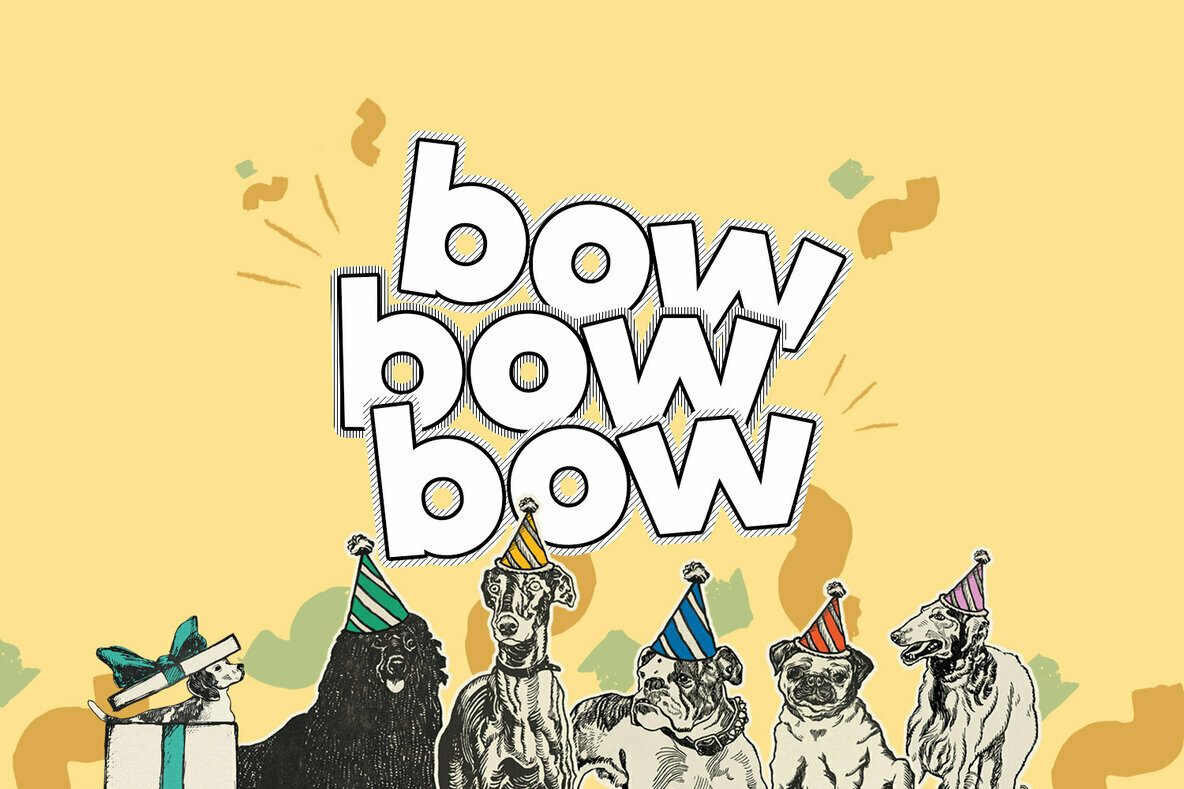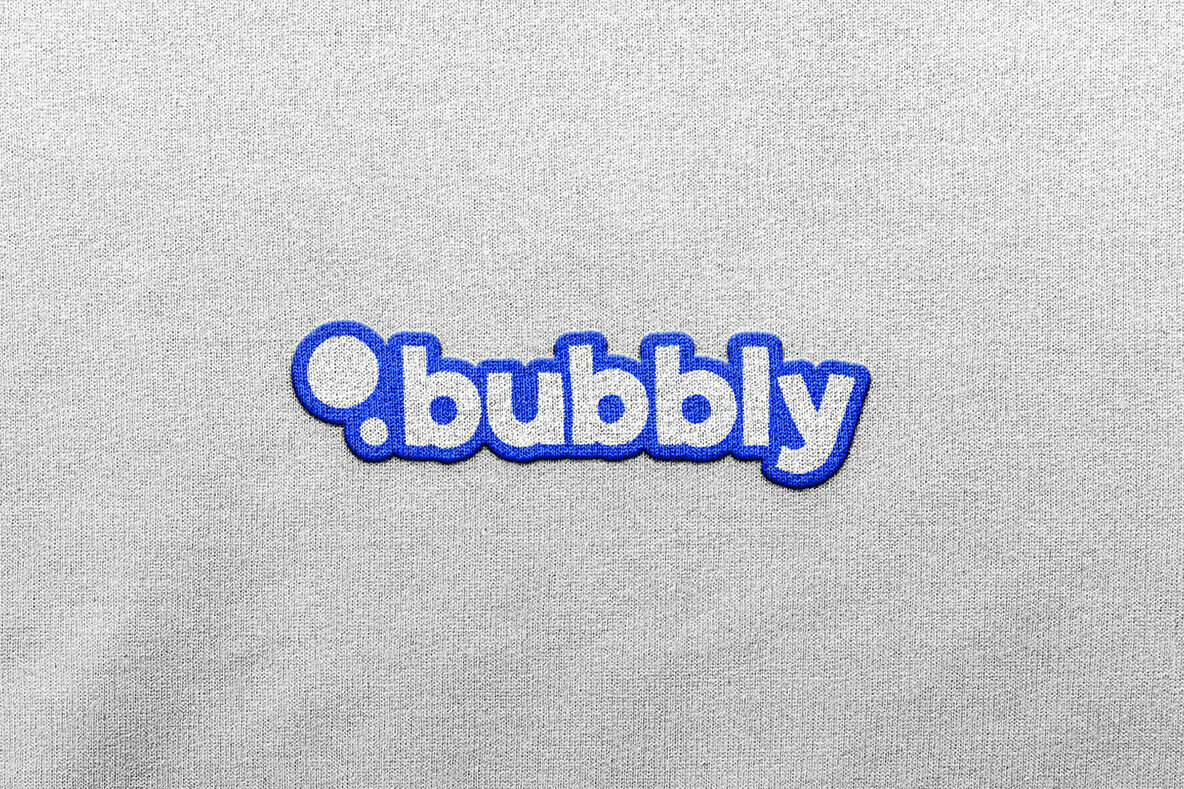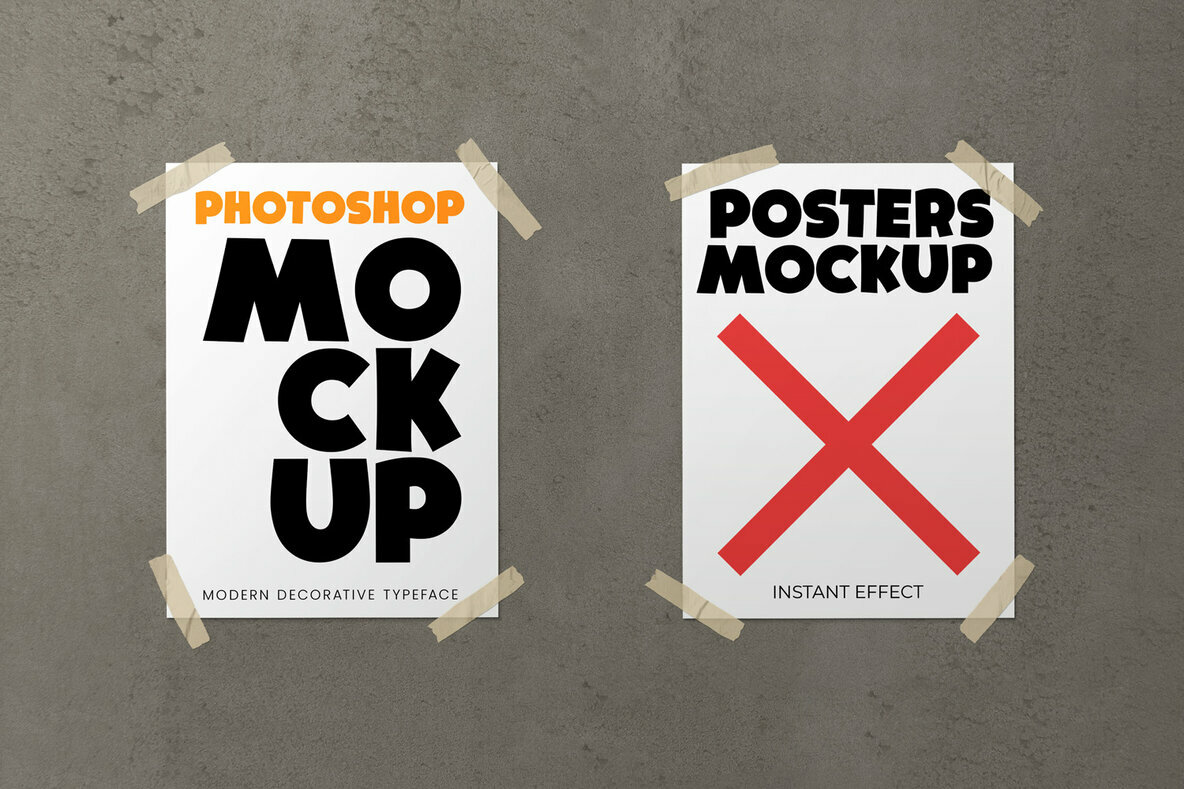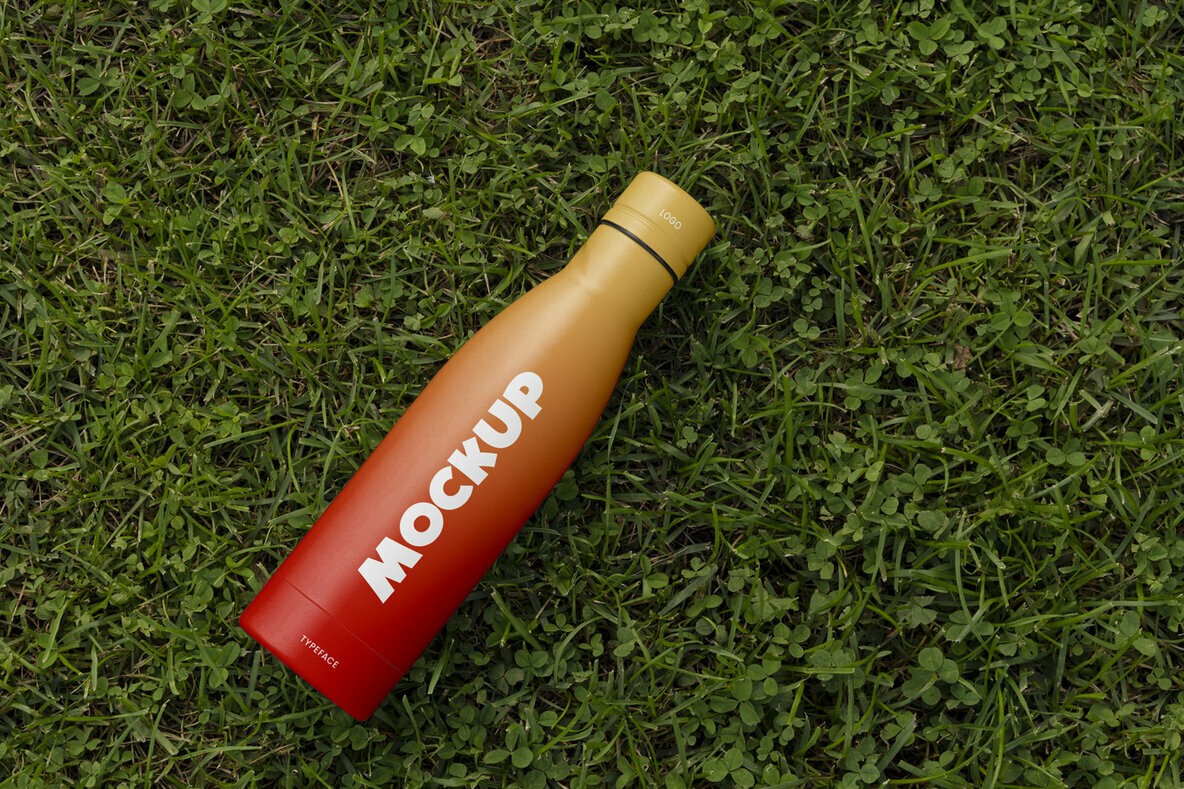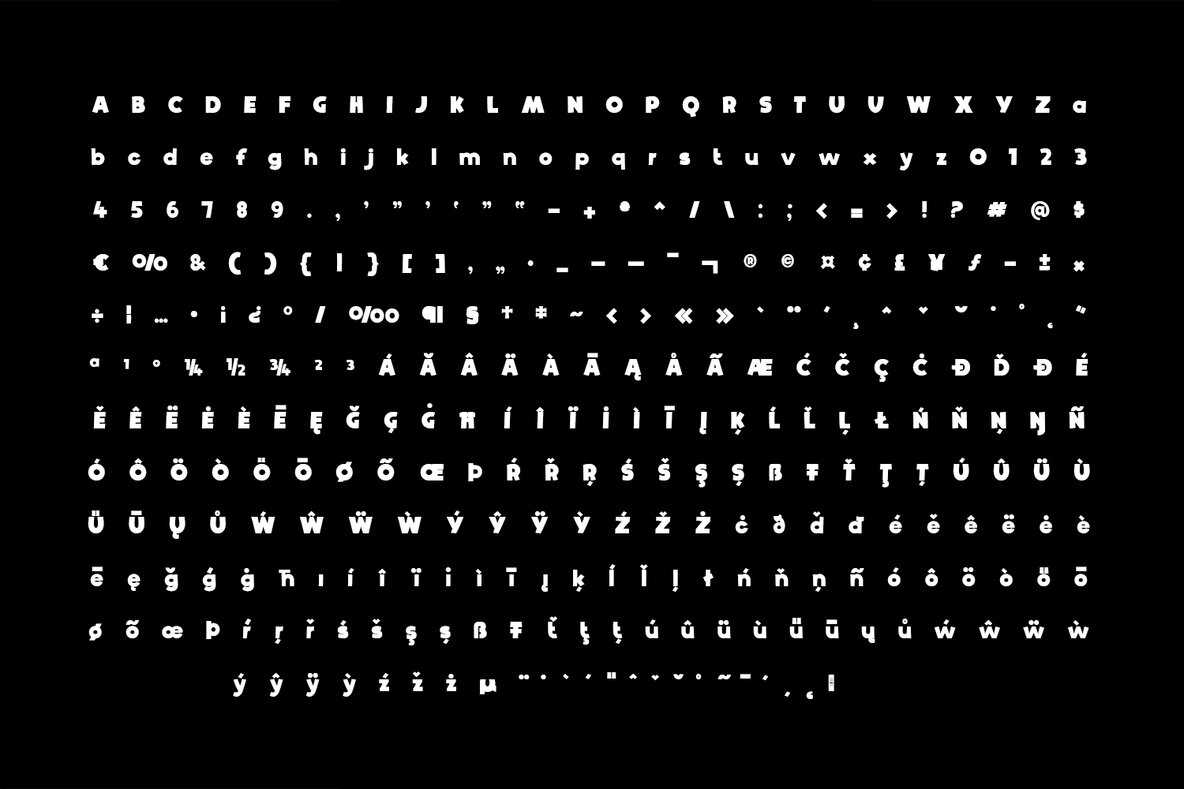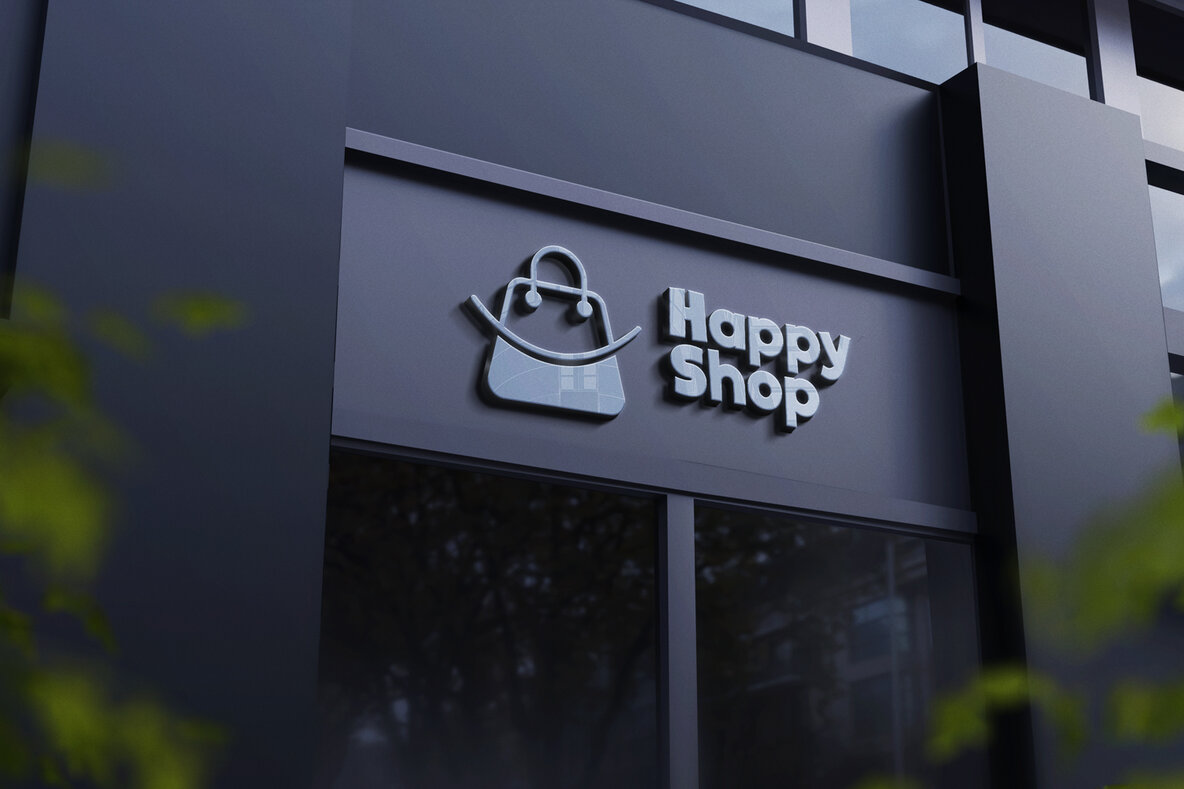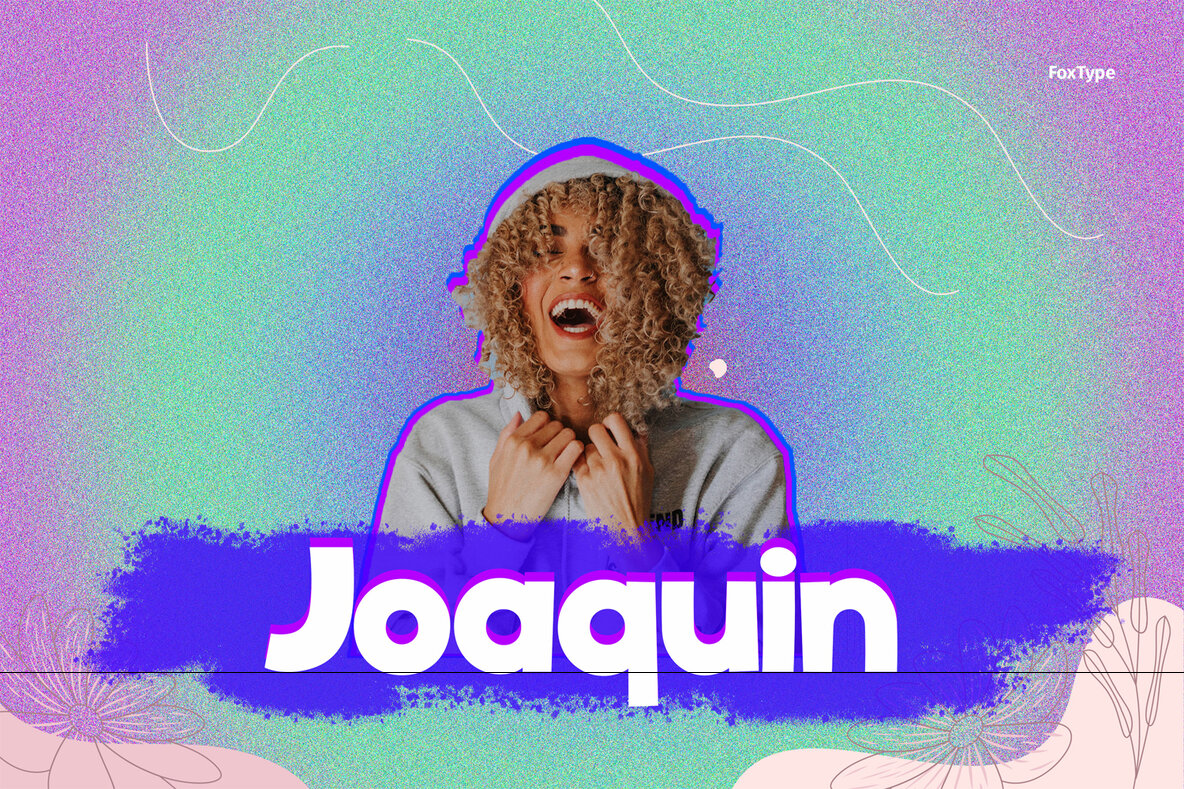
Black Boundy Typeface Font
Black Boundy Typeface Bold
Black Boundy stands out as a modern and elegant typeface, known for its versatility across various design needs. Ideal for both large and small text, this font captures a distinctive style that complements branding, logos, and headlines beautifully. Its strong uppercase letters are balanced by smoother lowercase forms, making it highly adaptable for different creative contexts. The design ethos of Black Boundy embodies a blend of minimalism and warmth, showcasing a quirky yet refined aesthetic. This typeface shines as a stylish text overlay on any background image, providing clarity and charm in equal measure.Black Boundy Typeface: A Unique and Modern Font